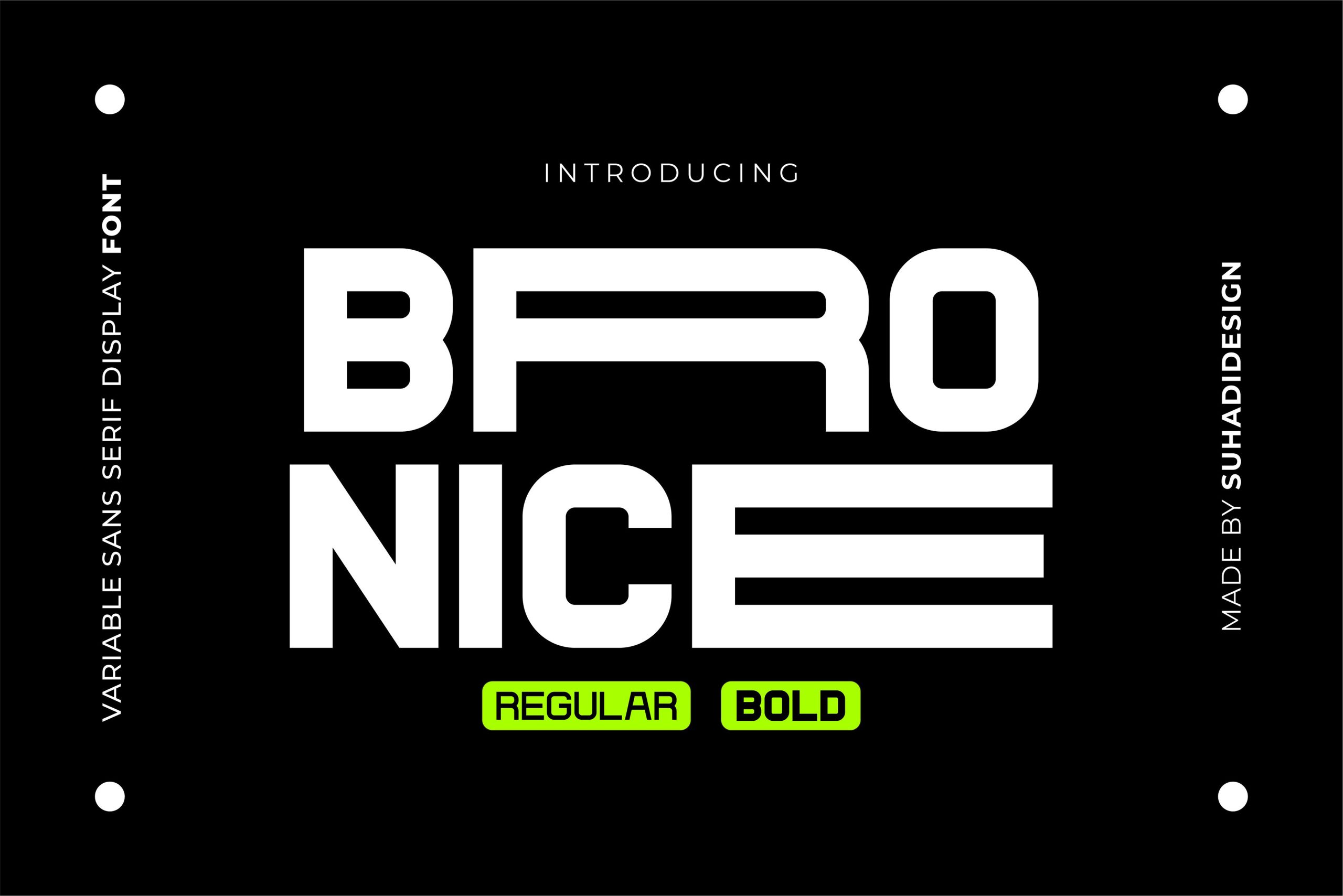
Bronice Sans Font
Bronice Sans Font is an exceptionally popular modern cool sans serif font designed in contemporary style to become a cult market. Elegant, sophisticated, modern and trendy are all hallmarks of sophistication that this font represents, making it easy to use.
Bronice Font is great choice for logos, fashion menus for food branding purposes, album covers, quotes or any type of project, its PUA encoded format means all its characters and ligatures can be utilized immediately!
Bronice Sans Serif Font